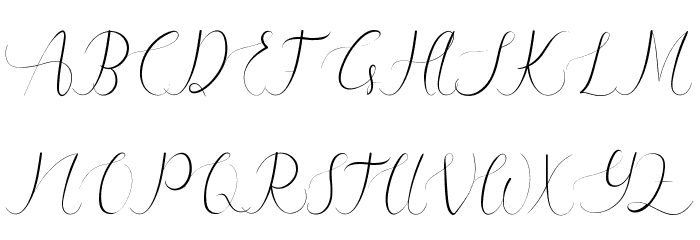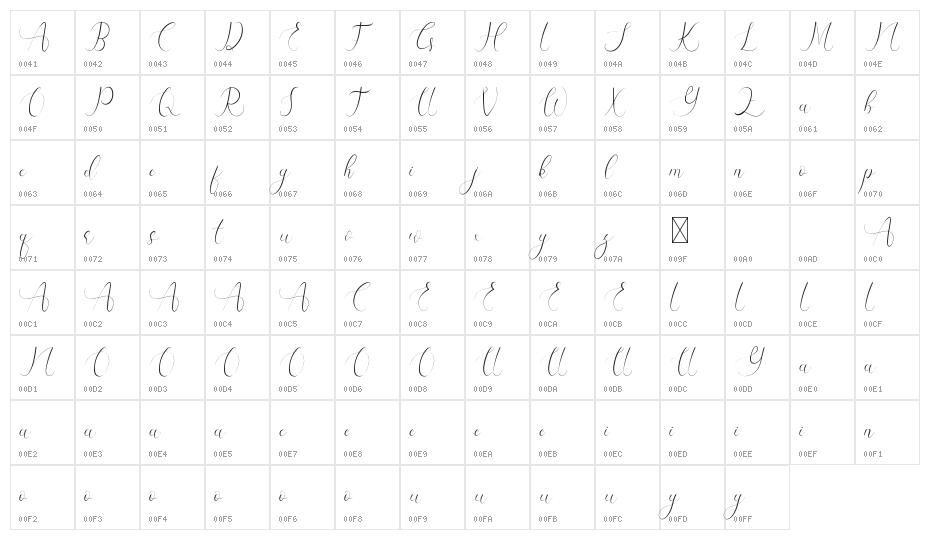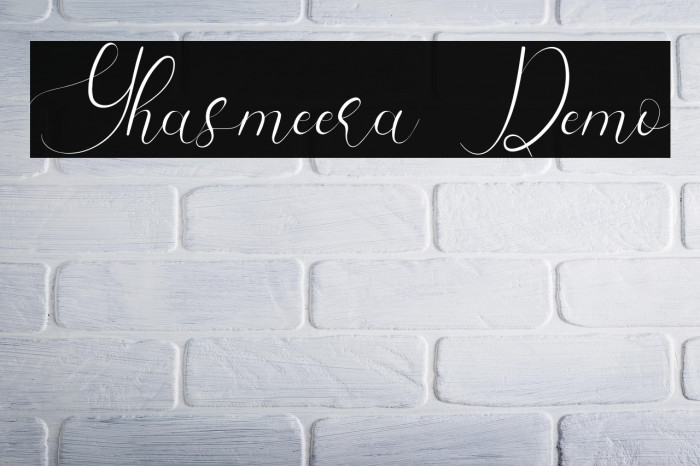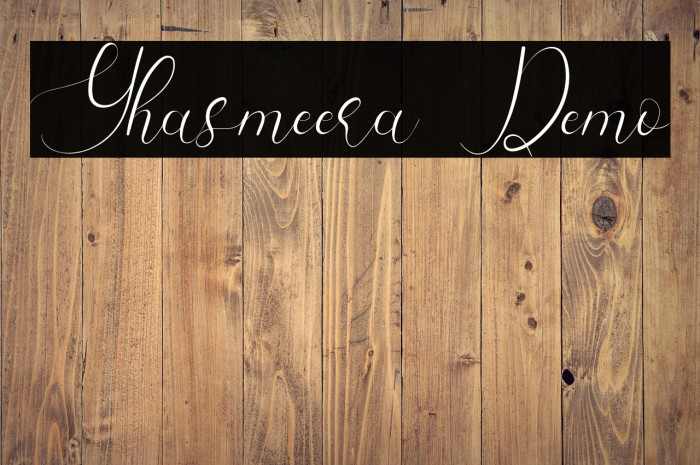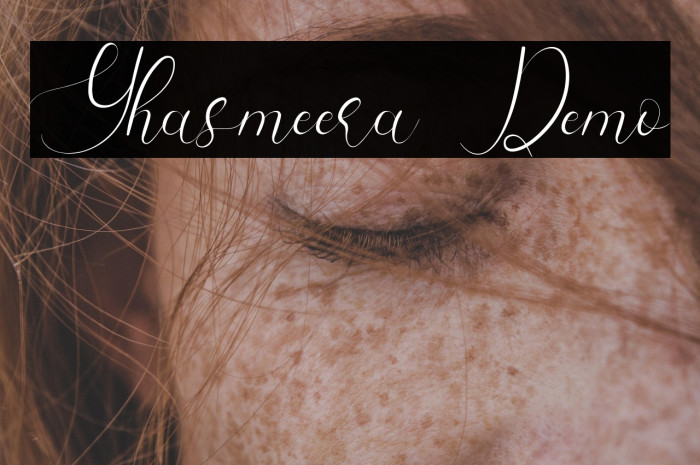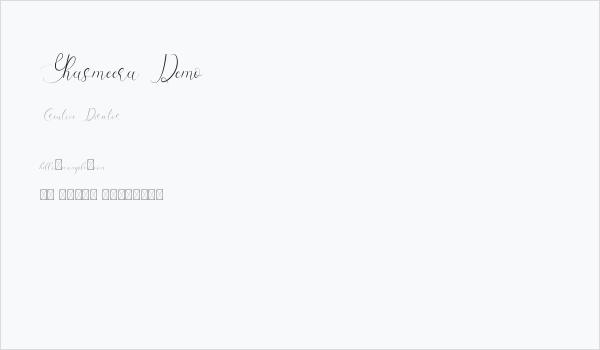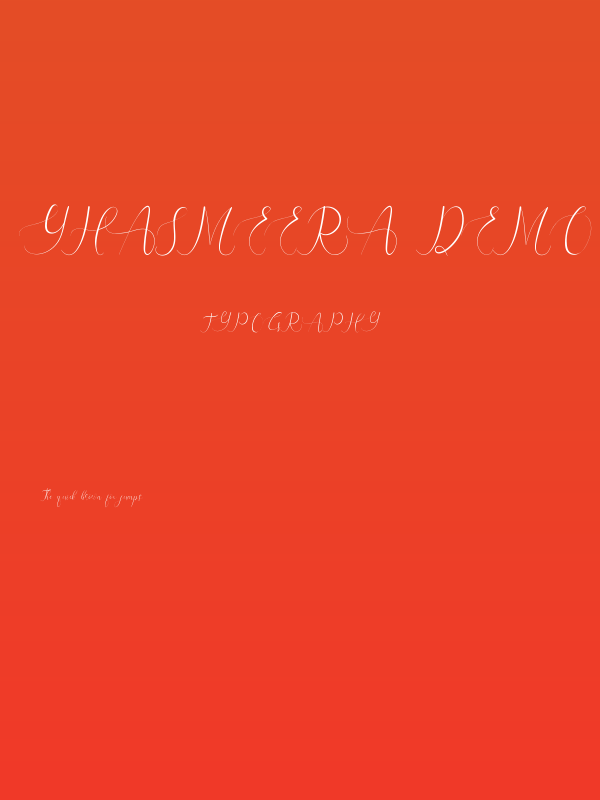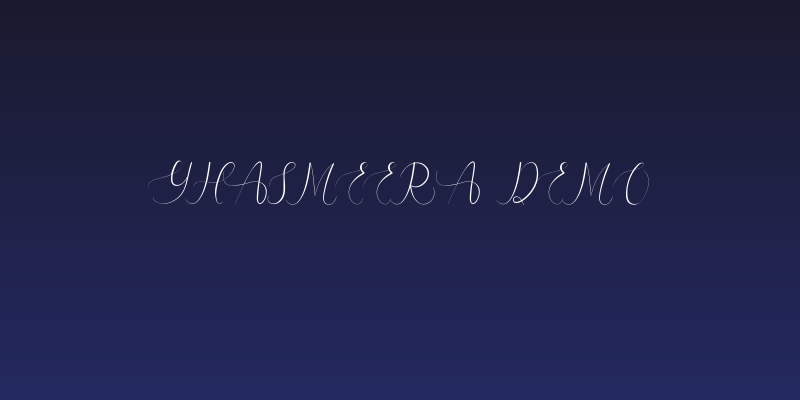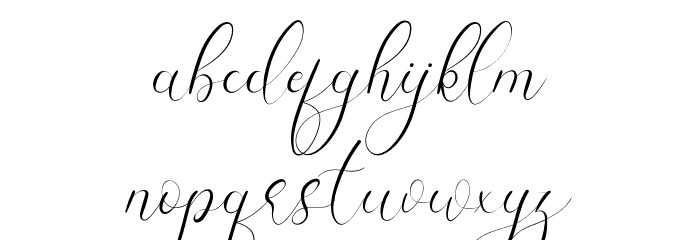
Yhasmeera Demo Font
Yhasmeera Demo Description
This elegant script font features flowing, interconnected letters with a delicate and sophisticated appearance. The characters are adorned with graceful loops and swashes, giving it a refined and artistic feel. The thin strokes and high contrast between thick and thin lines add to its elegance, making it suitable for formal and decorative purposes. The uppercase letters are particularly ornate, while the lowercase letters maintain a consistent style with smooth curves and fluid connections. This font exudes a sense of luxury and charm, perfect for creating visually appealing designs.
| Use Case | Headlines, Invitations, Logos |
| Proposed Projects | Ideal for wedding invitations, luxury branding, elegant stationery, and decorative headlines. |